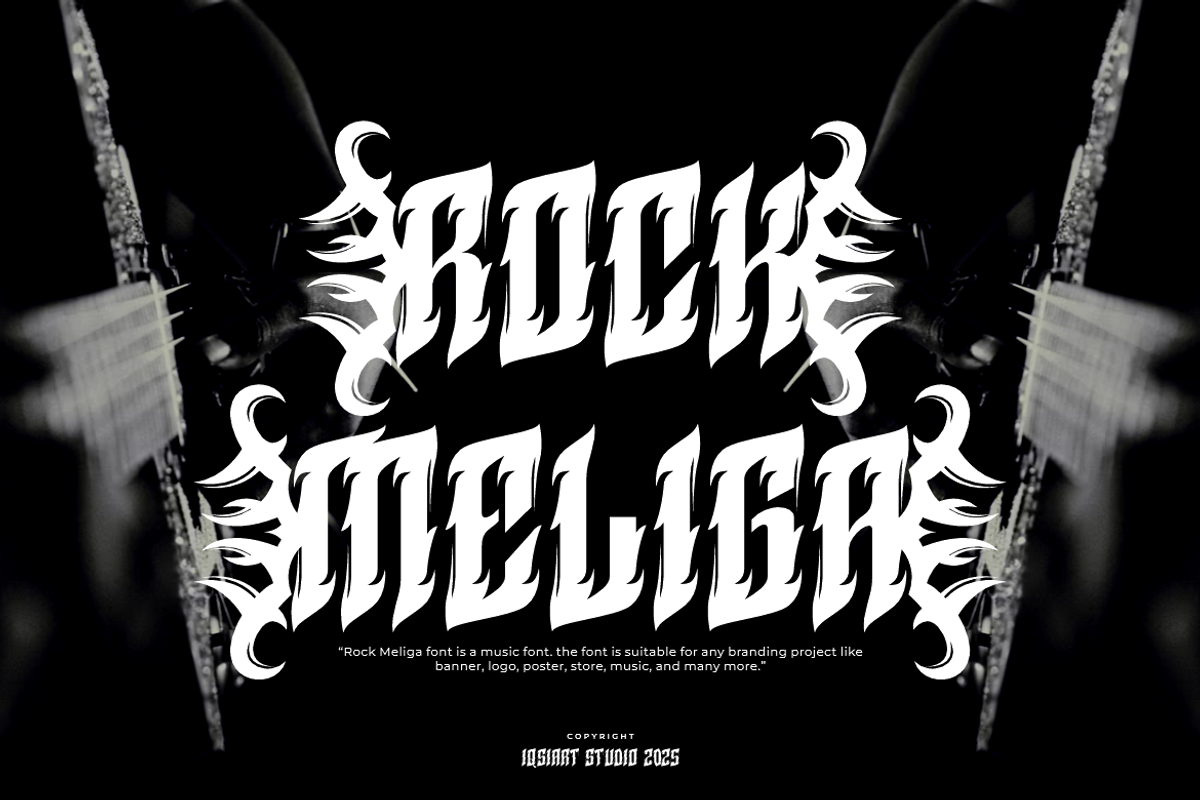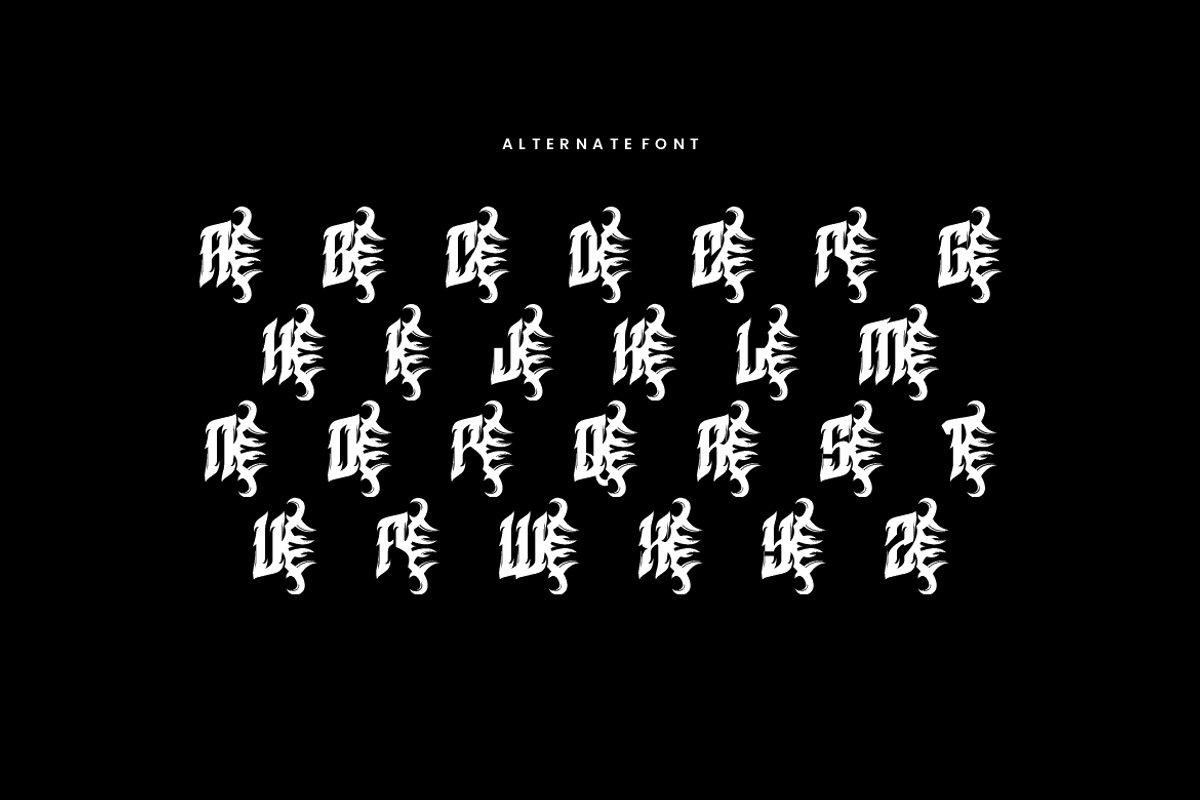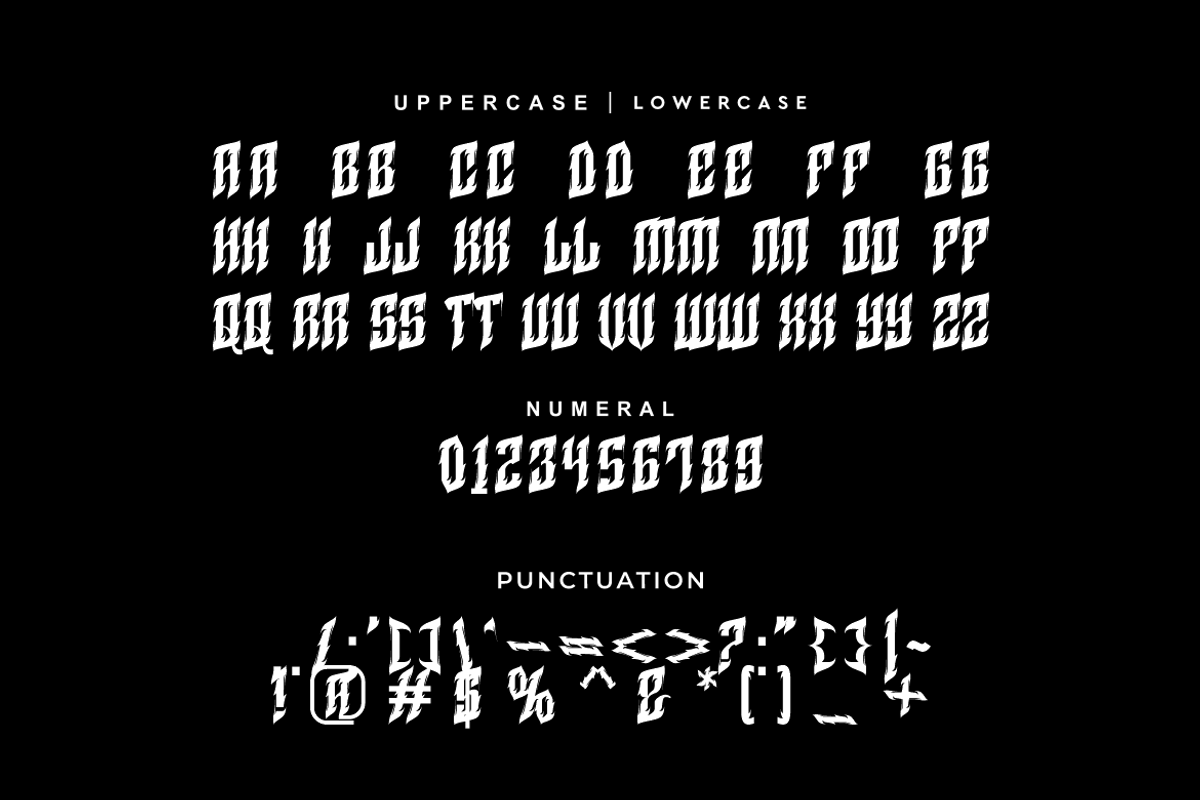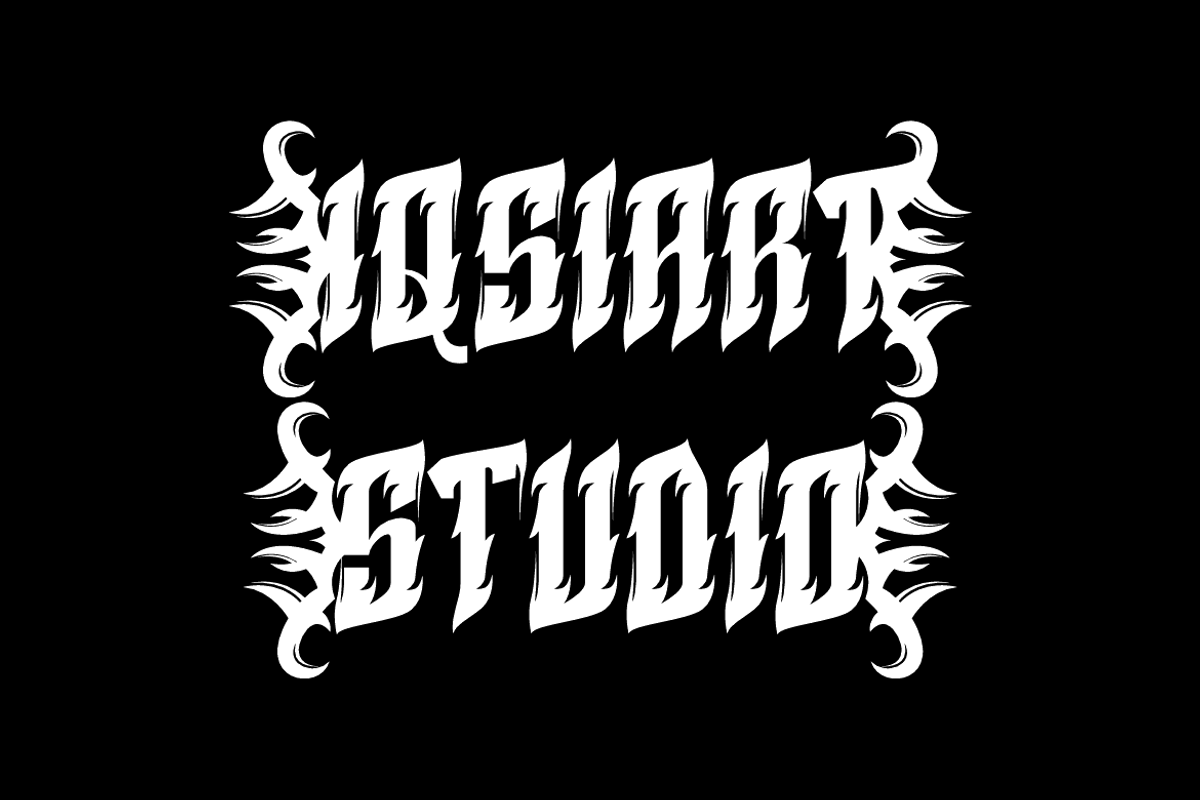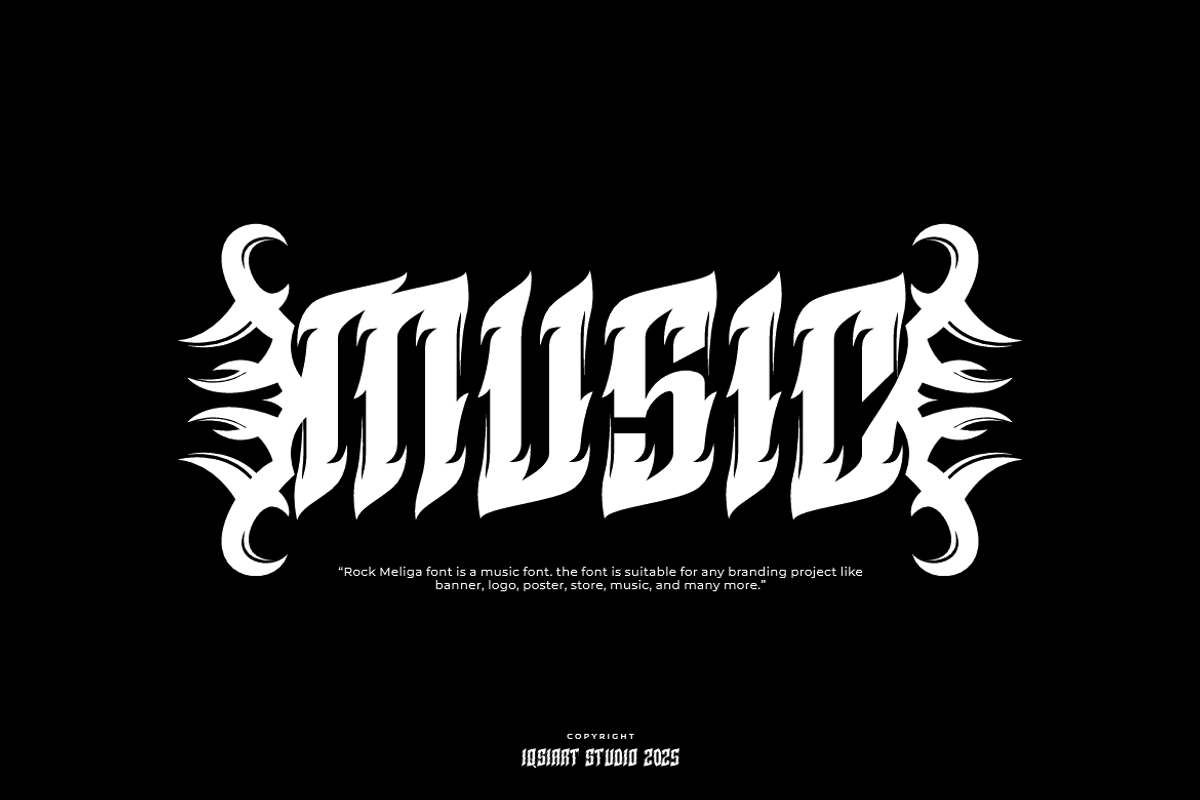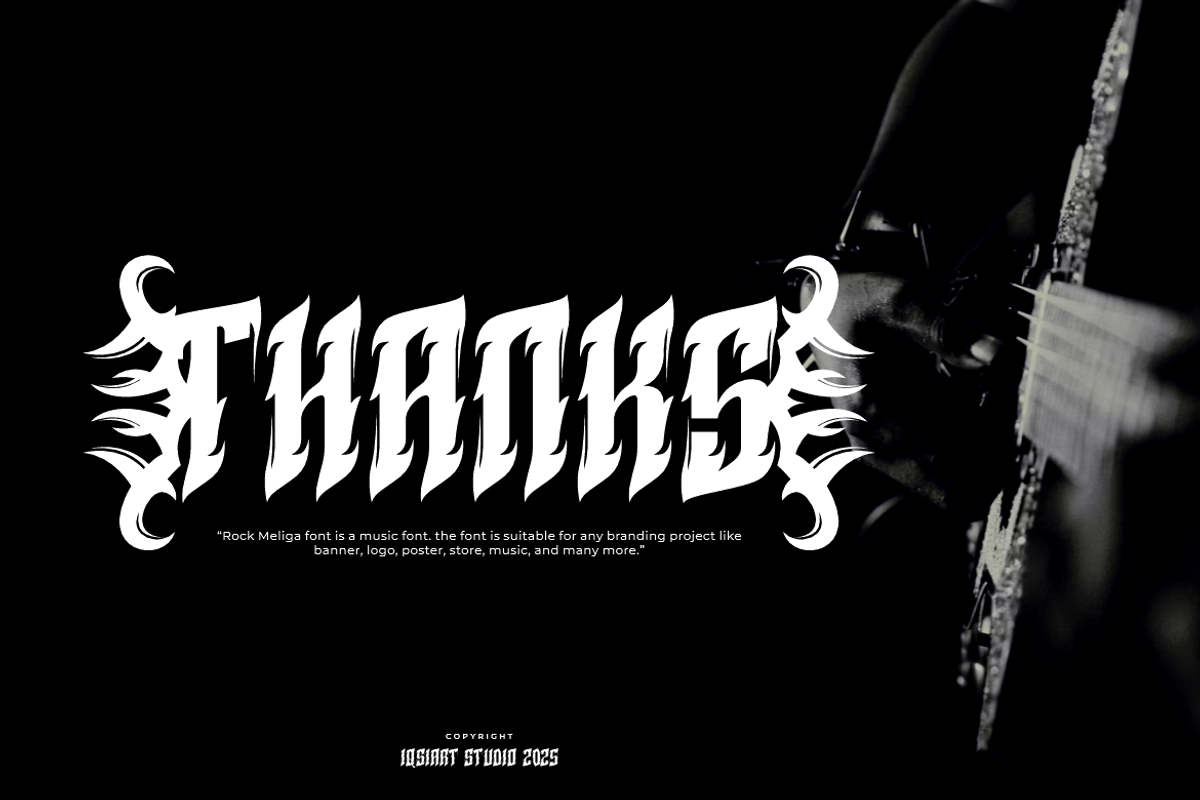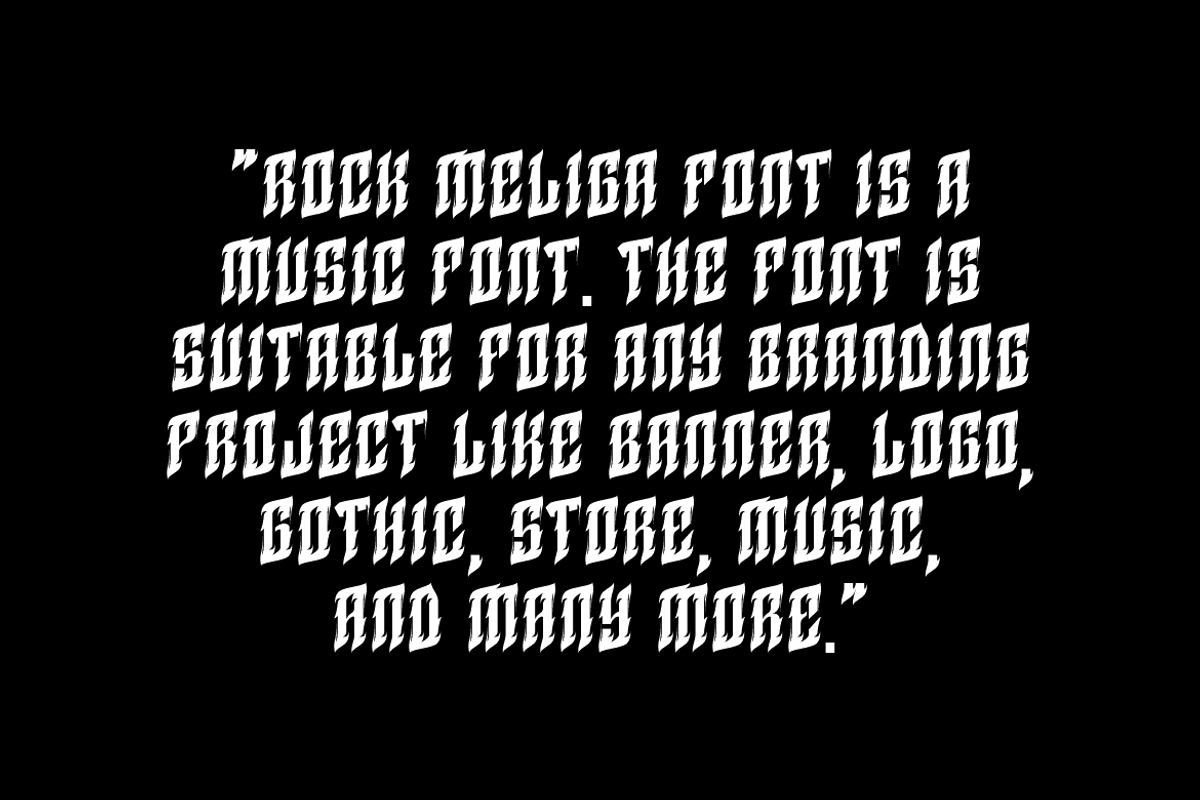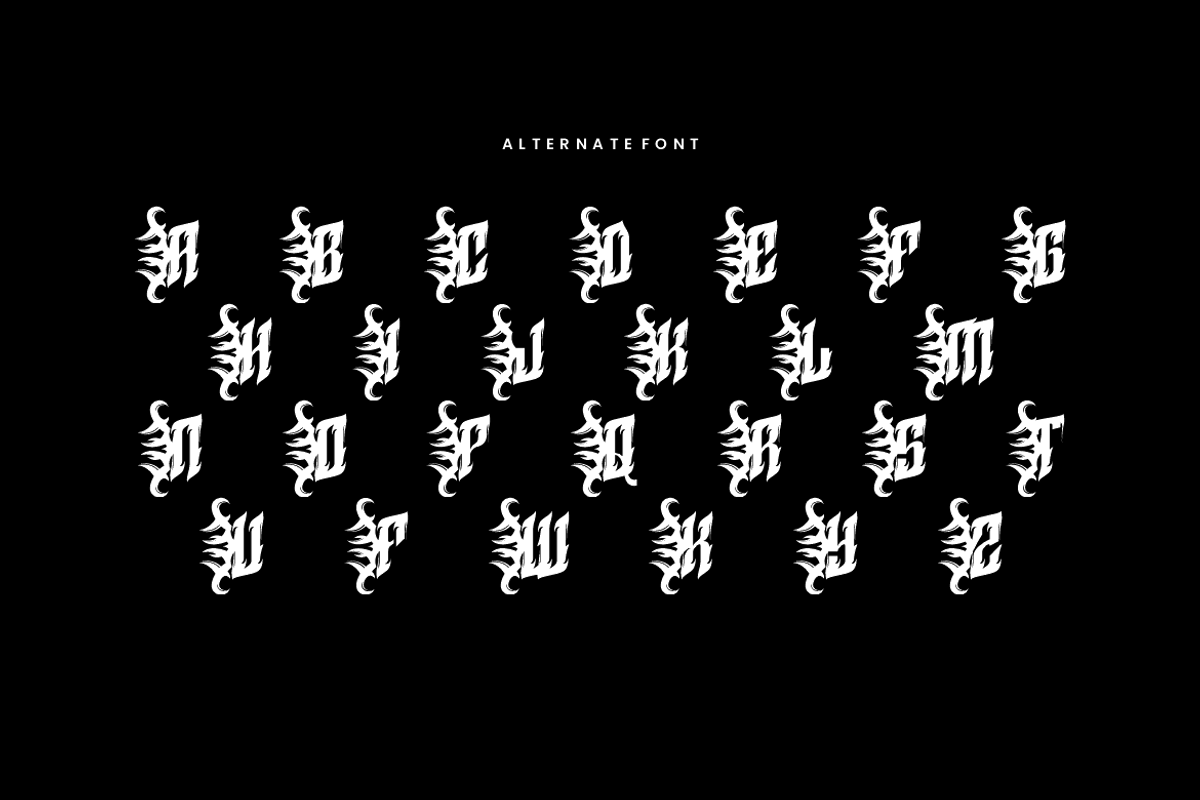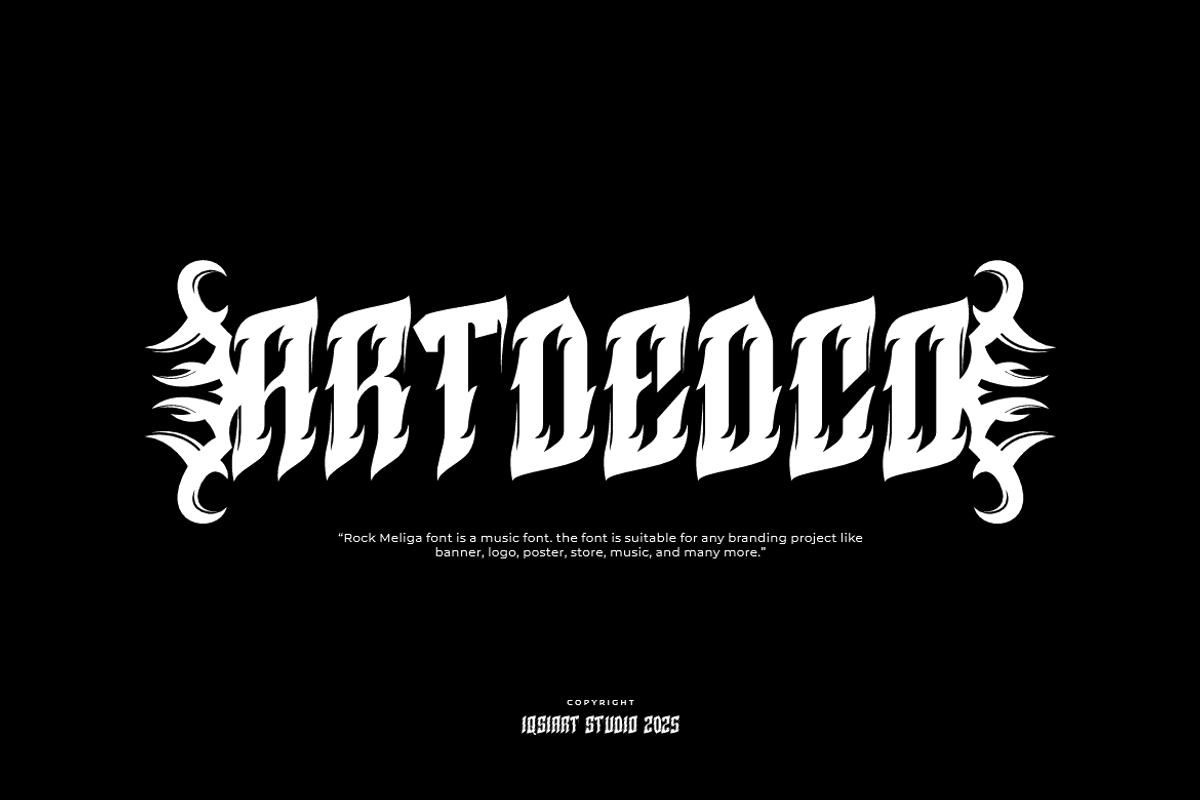
Rock Meliga - Music Font
Rock Meliga Font is a best and authentic display font. This font can be used for your various needs. We provide various themes and font styles. visit our profile to get a wide variety of themes and different font styles you need.